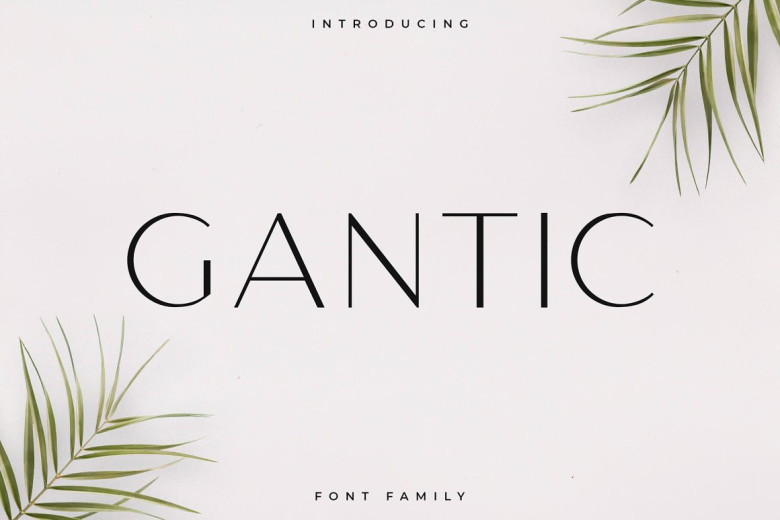
Gantic Font
Gantic is an elegant and clean sans serif font. It’s a versatile font family designed for strong, classic branding. Gantic is perfect for any branding, logos, magazines, videos, weddings, quotes, print, product packaging, website, clothing designs and much more.
Gantic Sans Serif Font